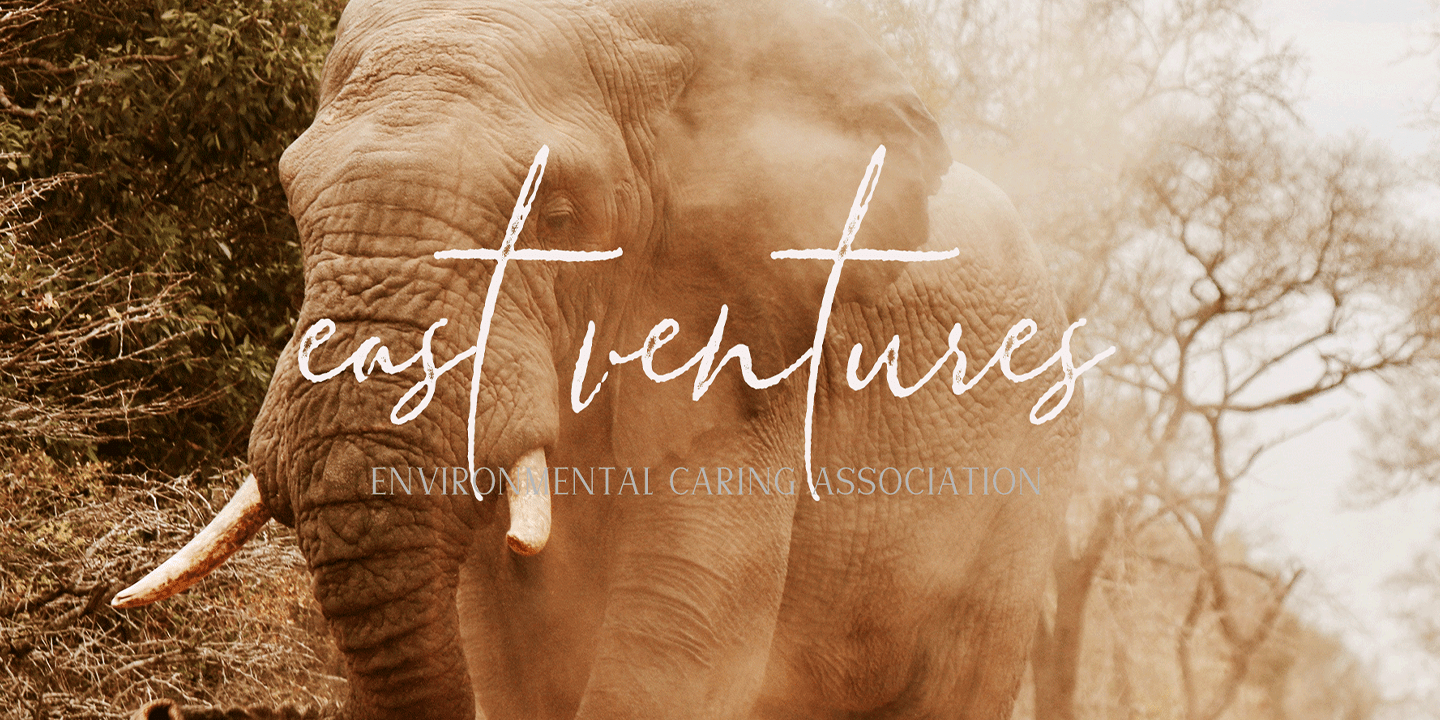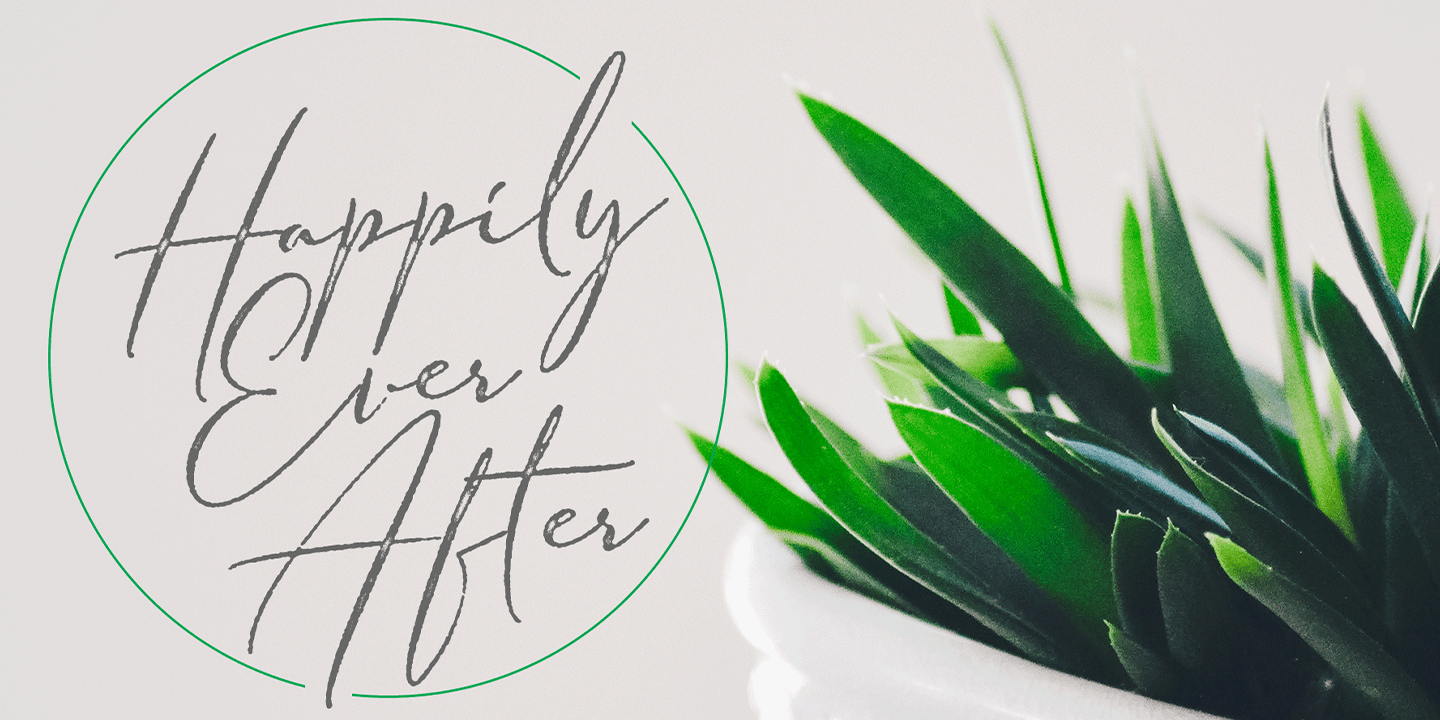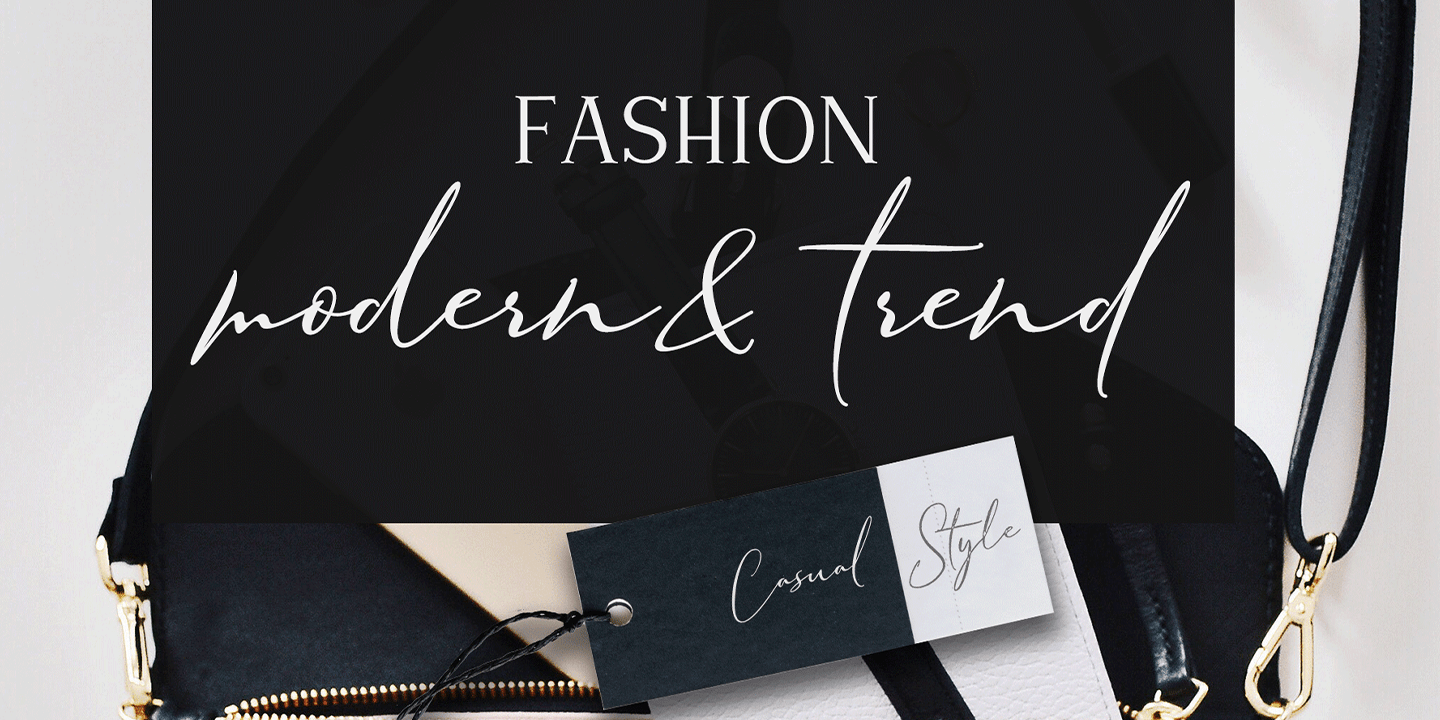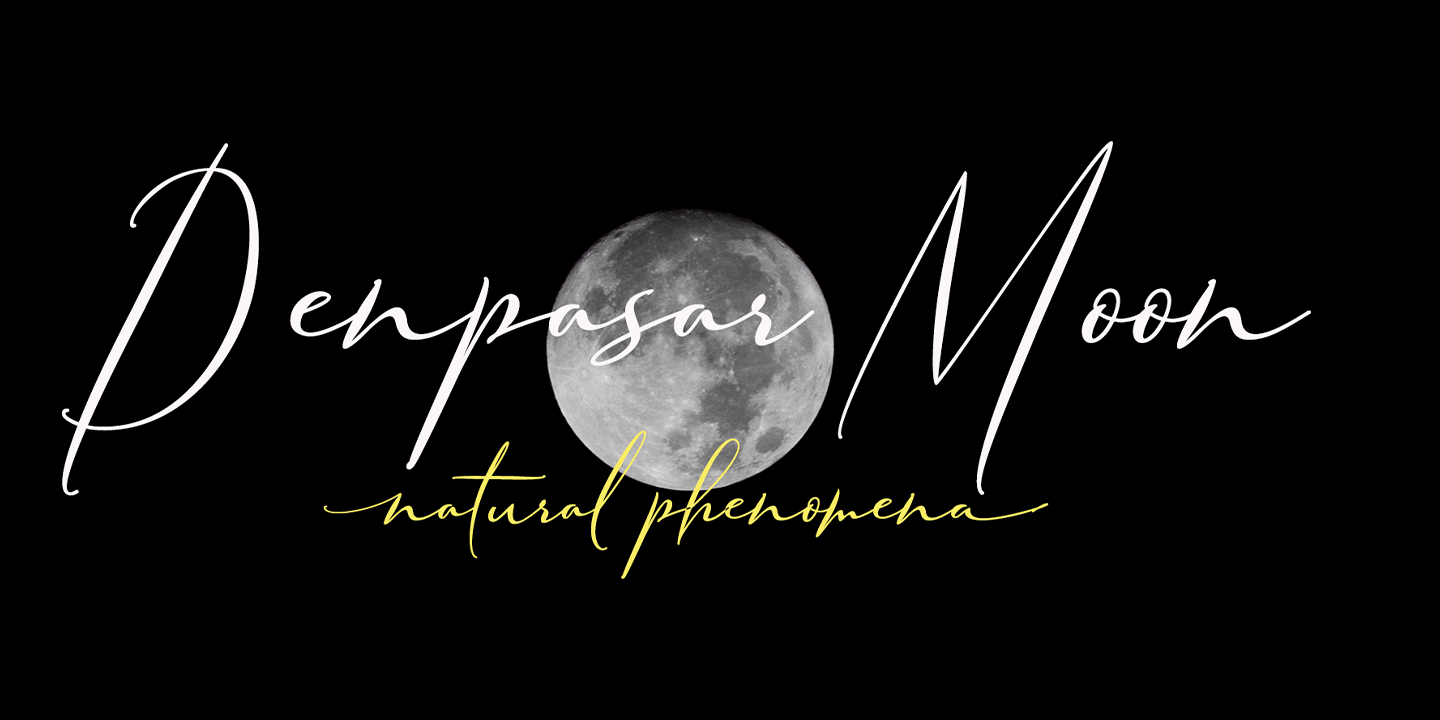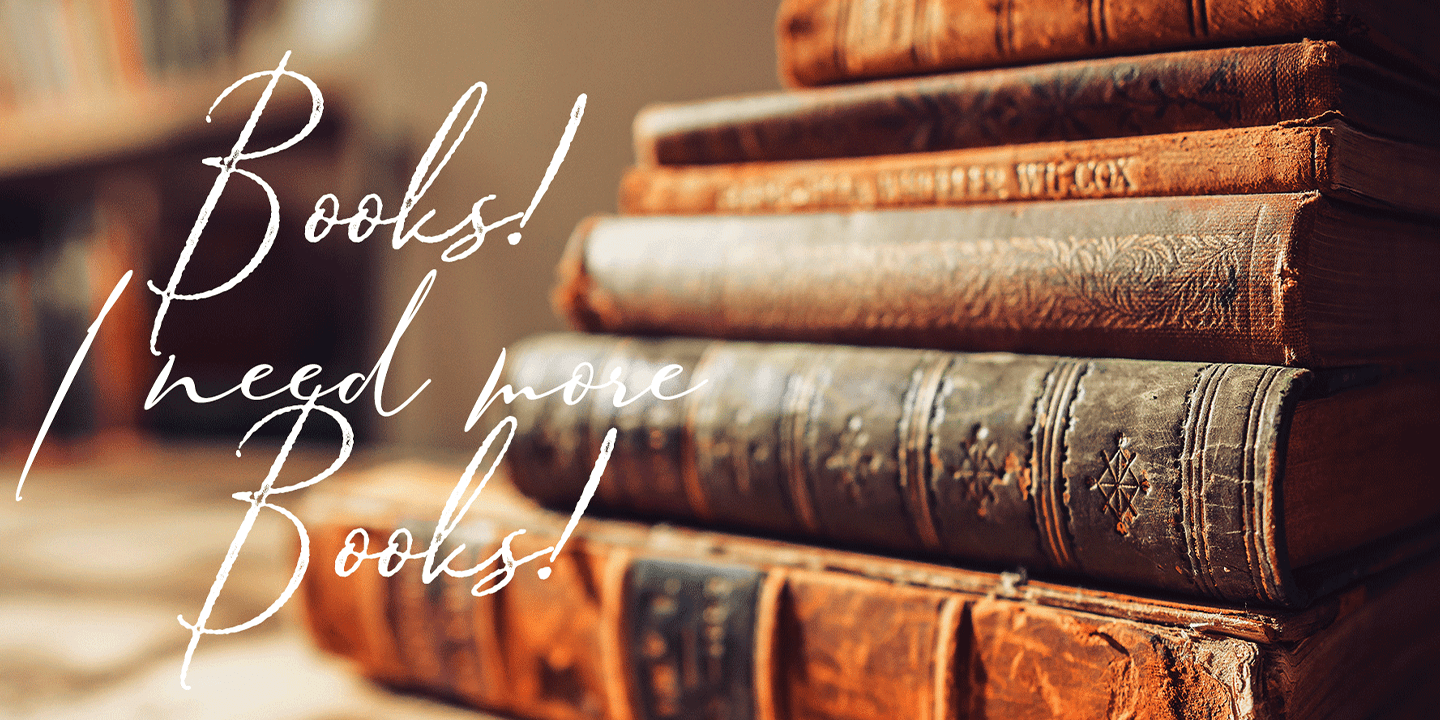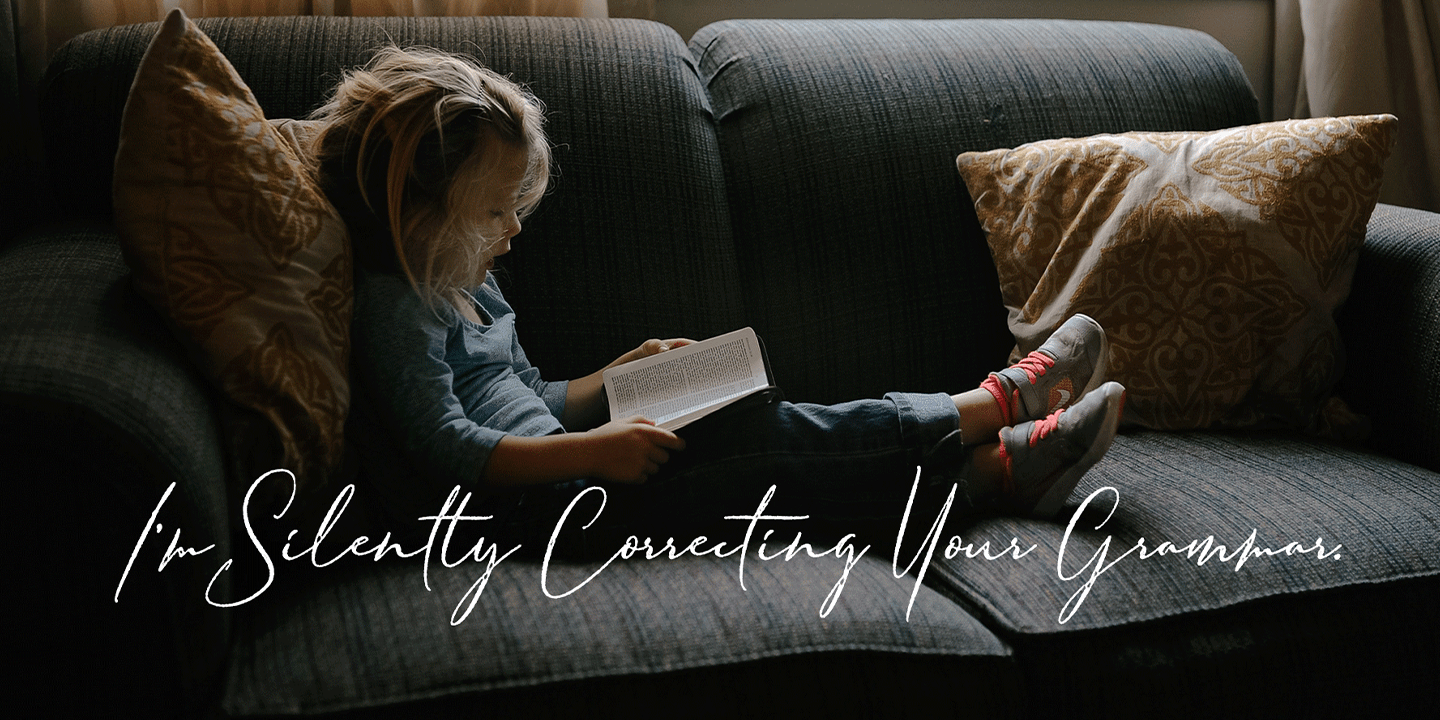
Armando
Armando and Armando Rough
Armando a work that is purely a result of handwriting and writing by using a liquid ink pen, has a natural characteristic. this is perfect for invitations, signatures, blogs, social media, business cards, product brands.
Armando a work that is purely handwritten, has its own characteristics with the style of monoline It is perfect for invitations, signatures, blogs, social media, business cards, product brands.